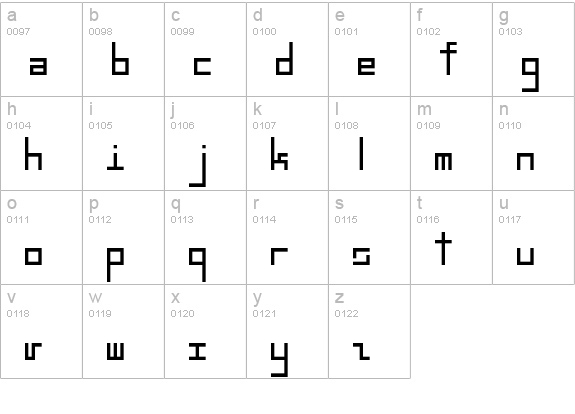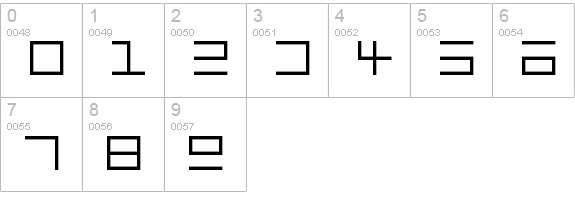
Epps Text font is a modern and sleek typeface designed for elegant and professional designs. With its clean lines and sharp edges, Epps Text exudes sophistication and style. This versatile font is perfect for a wide range of projects, from branding to editorial design. What sets Epps Text apart is not only its striking appearance but also its accessibility - it is available for free download at FontsMarket.com. This means that you can easily incorporate this beautiful font into your projects without any additional cost. Whether you are working on a personal project or a client's design, Epps Text is a fantastic choice that will elevate your work to the next level. Download Epps Text today and add a touch of refinement to your typography.